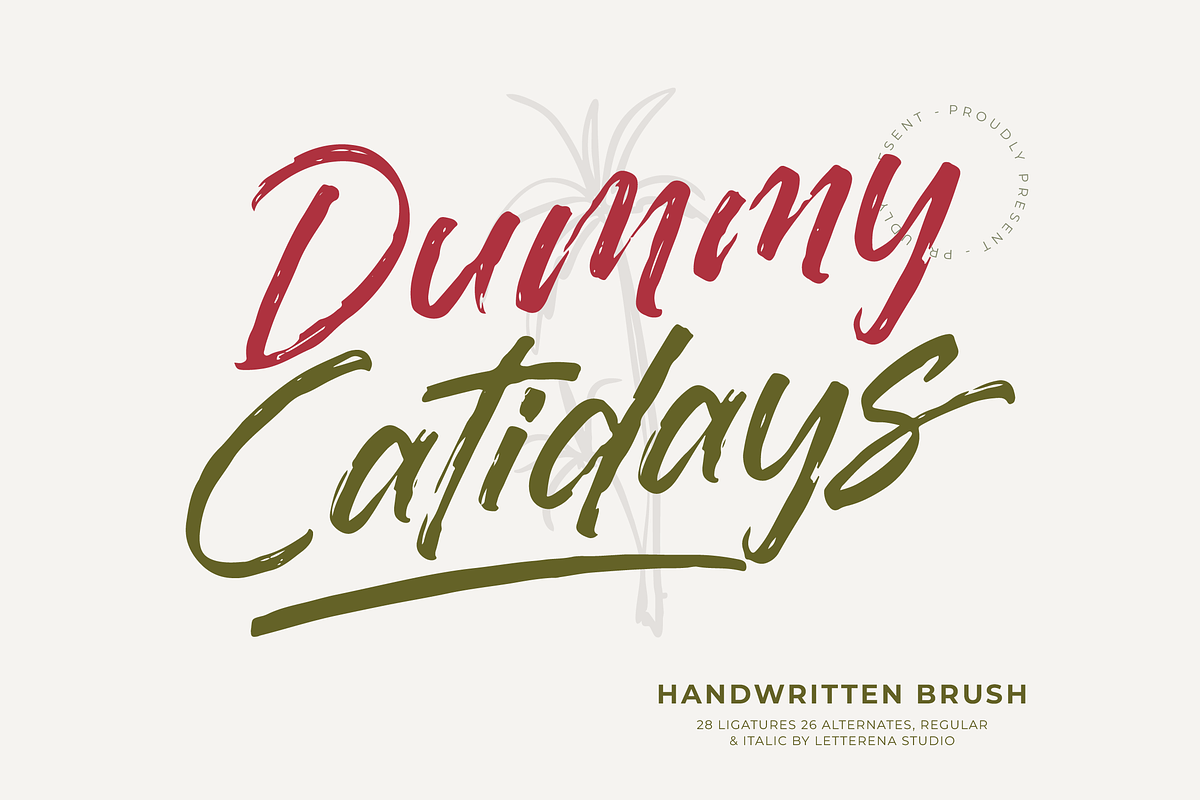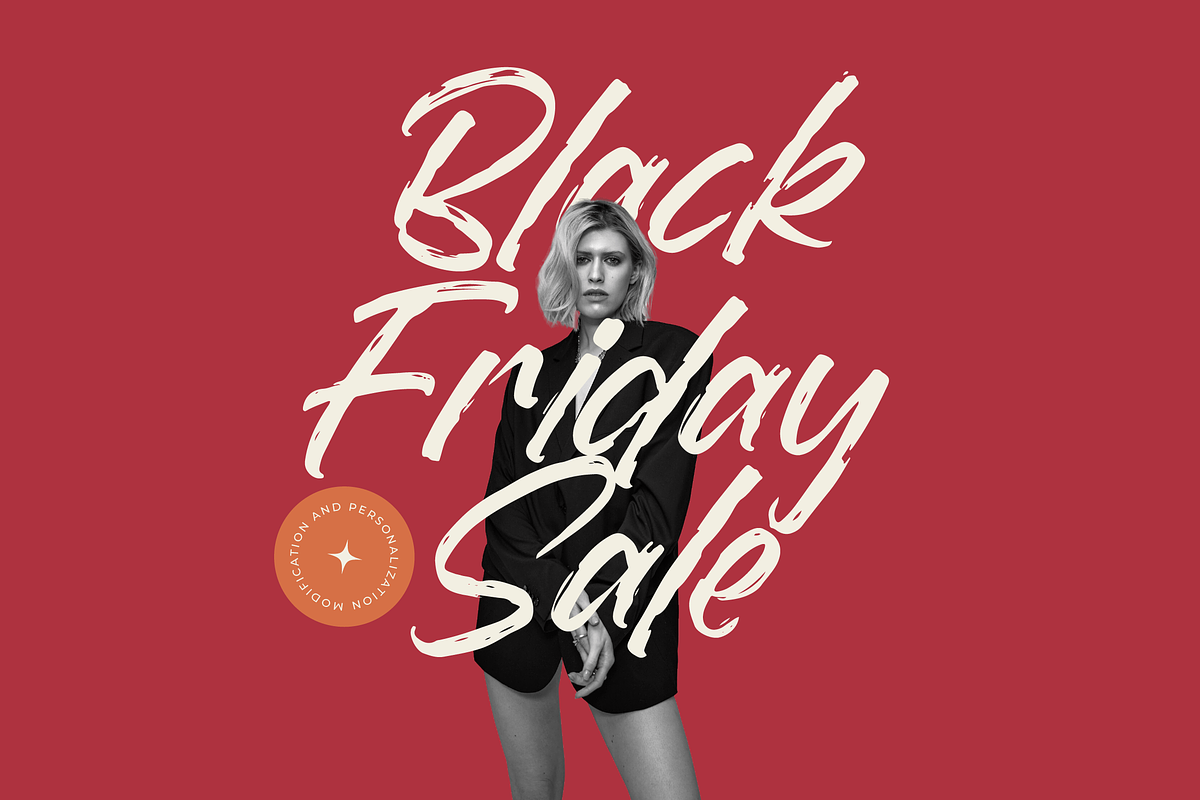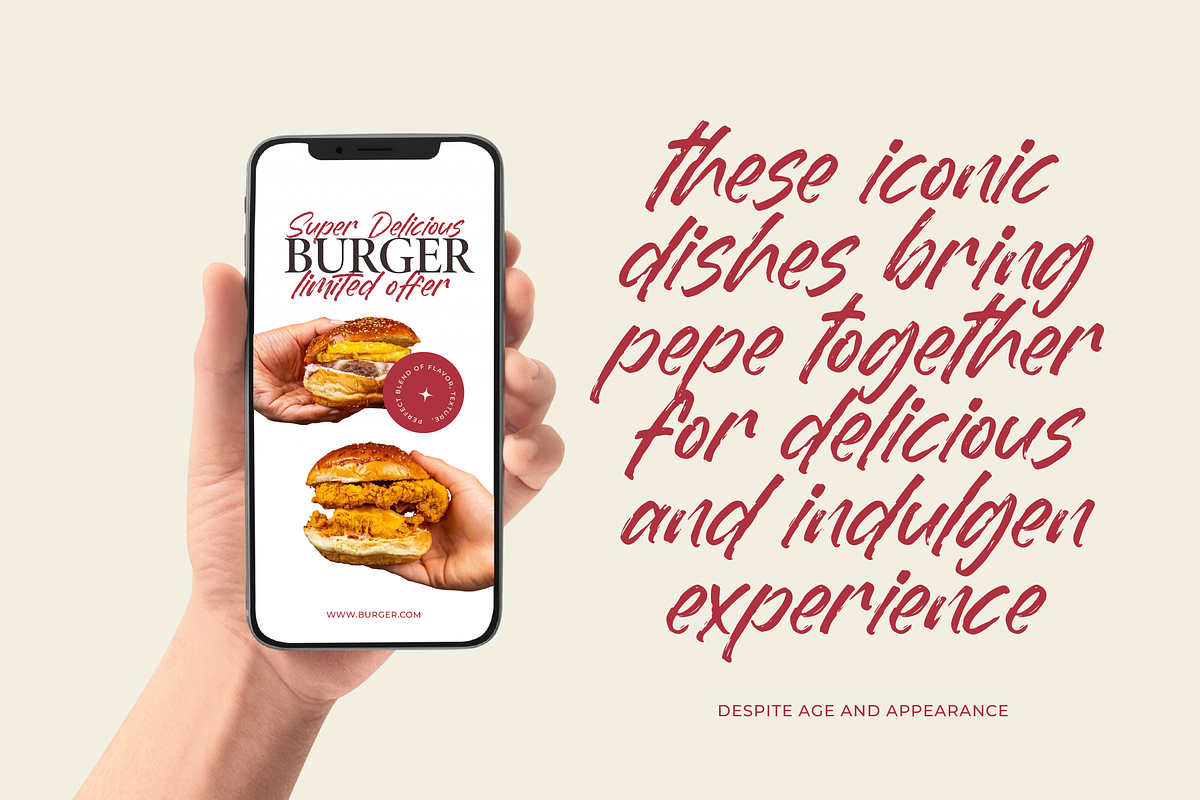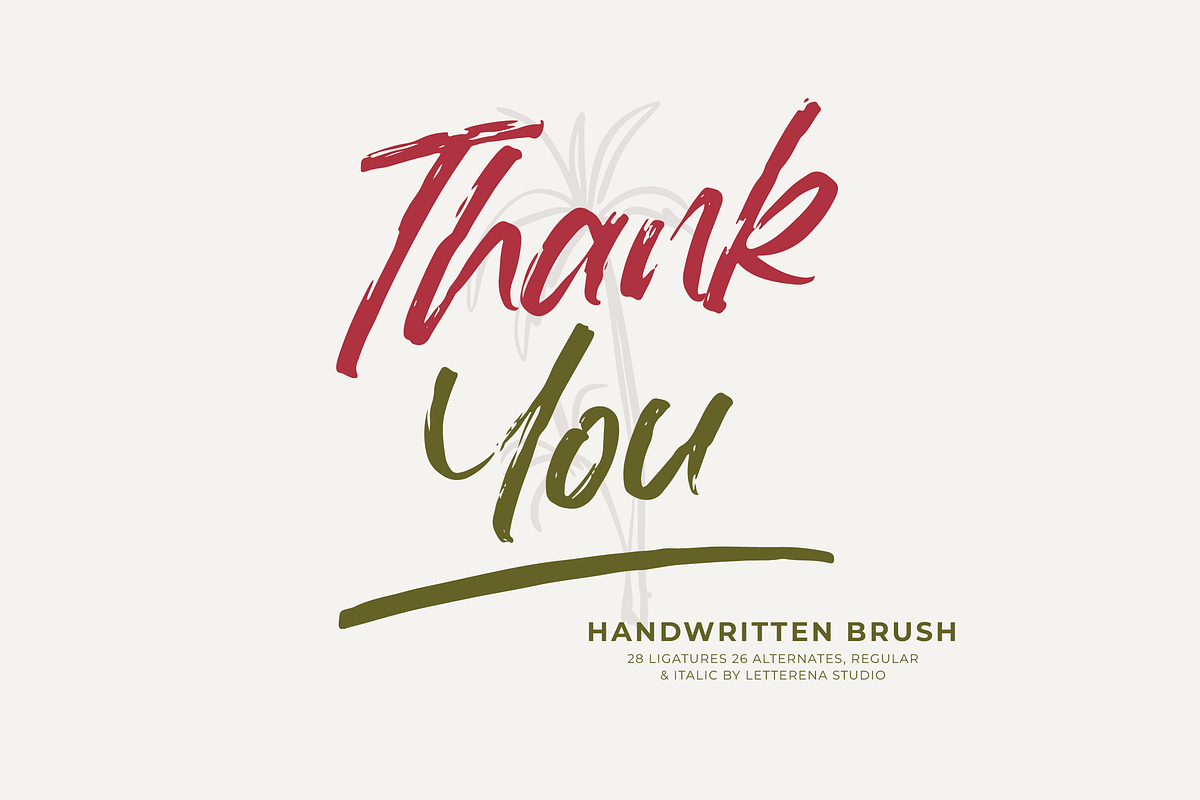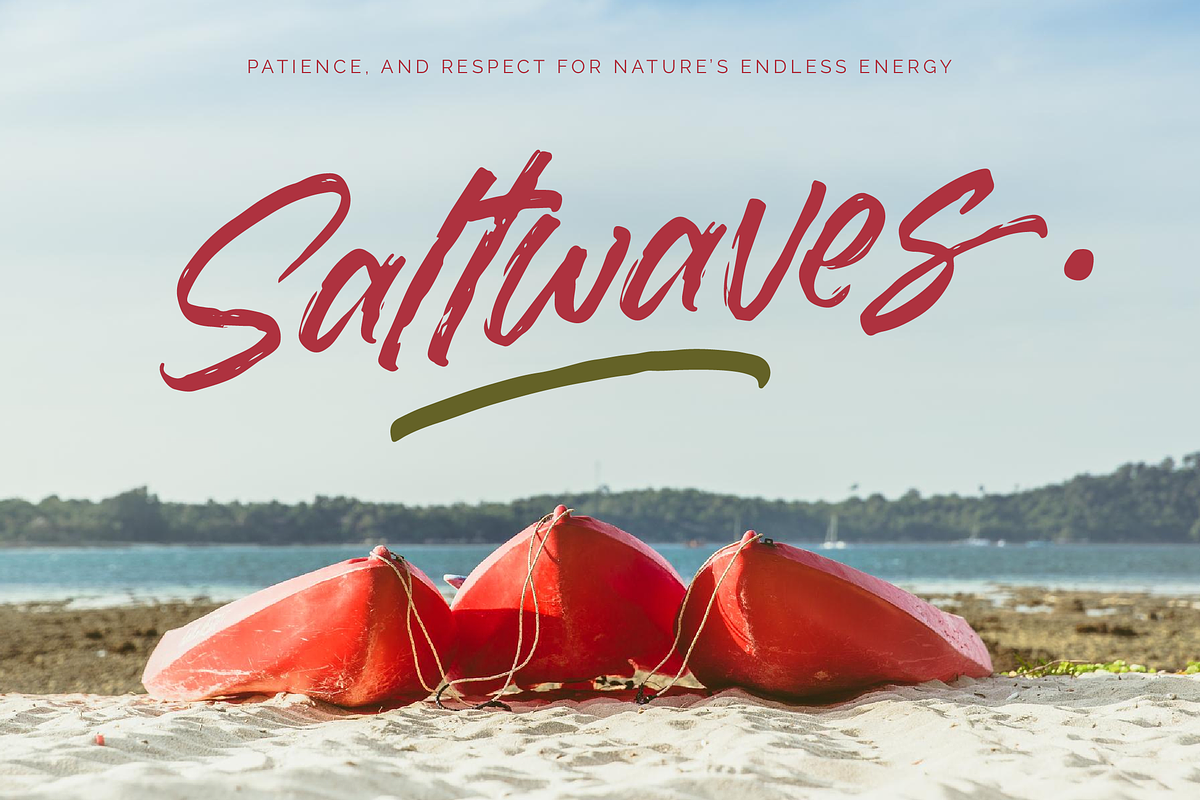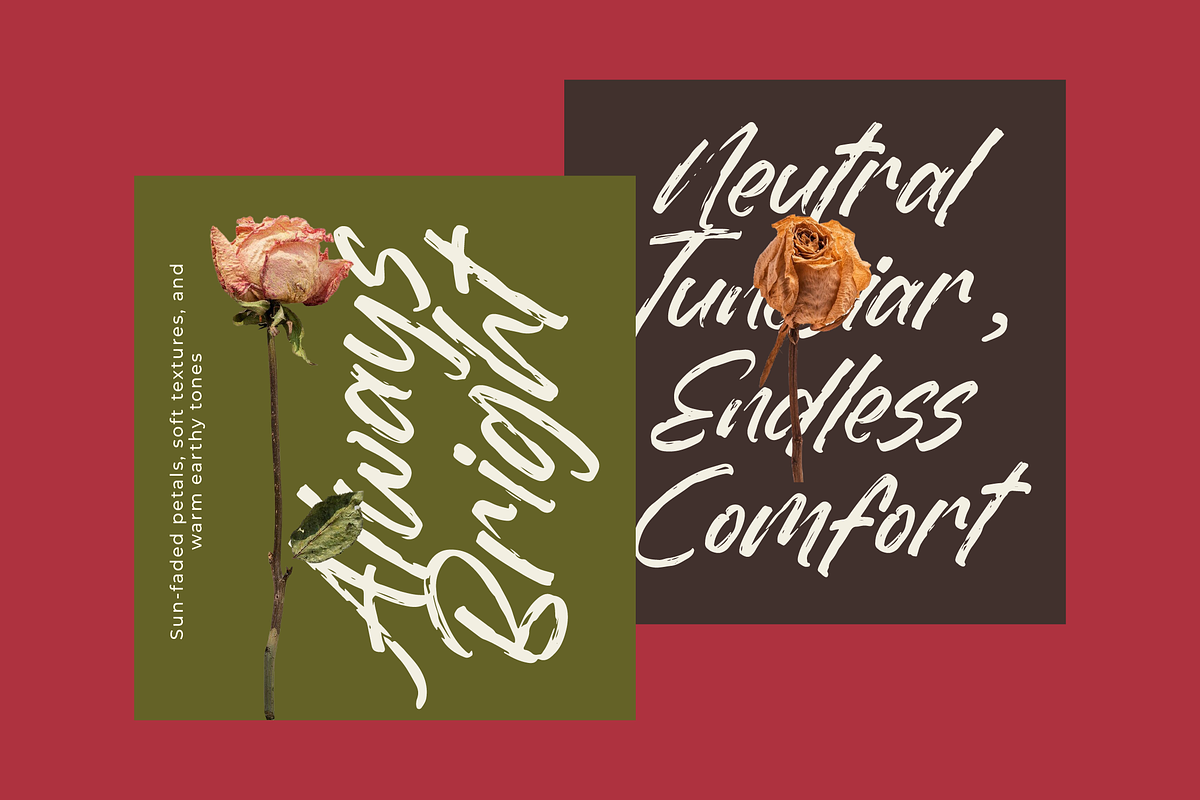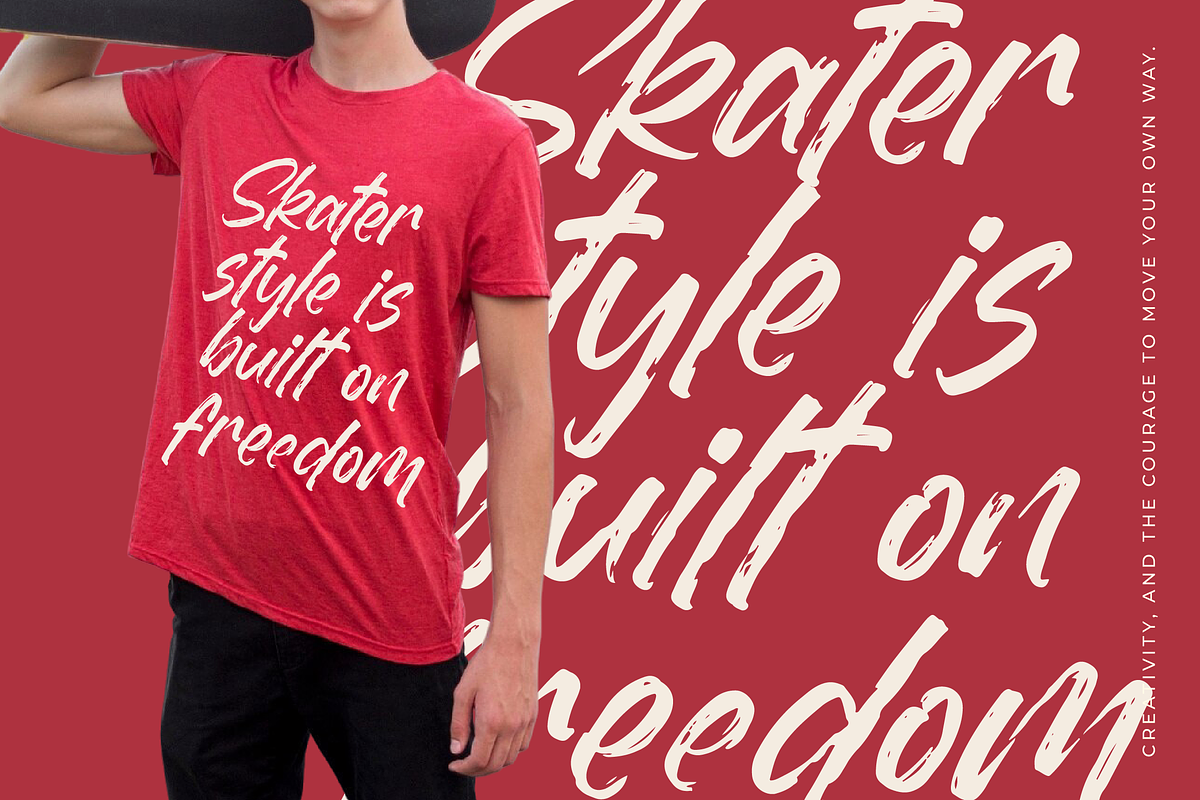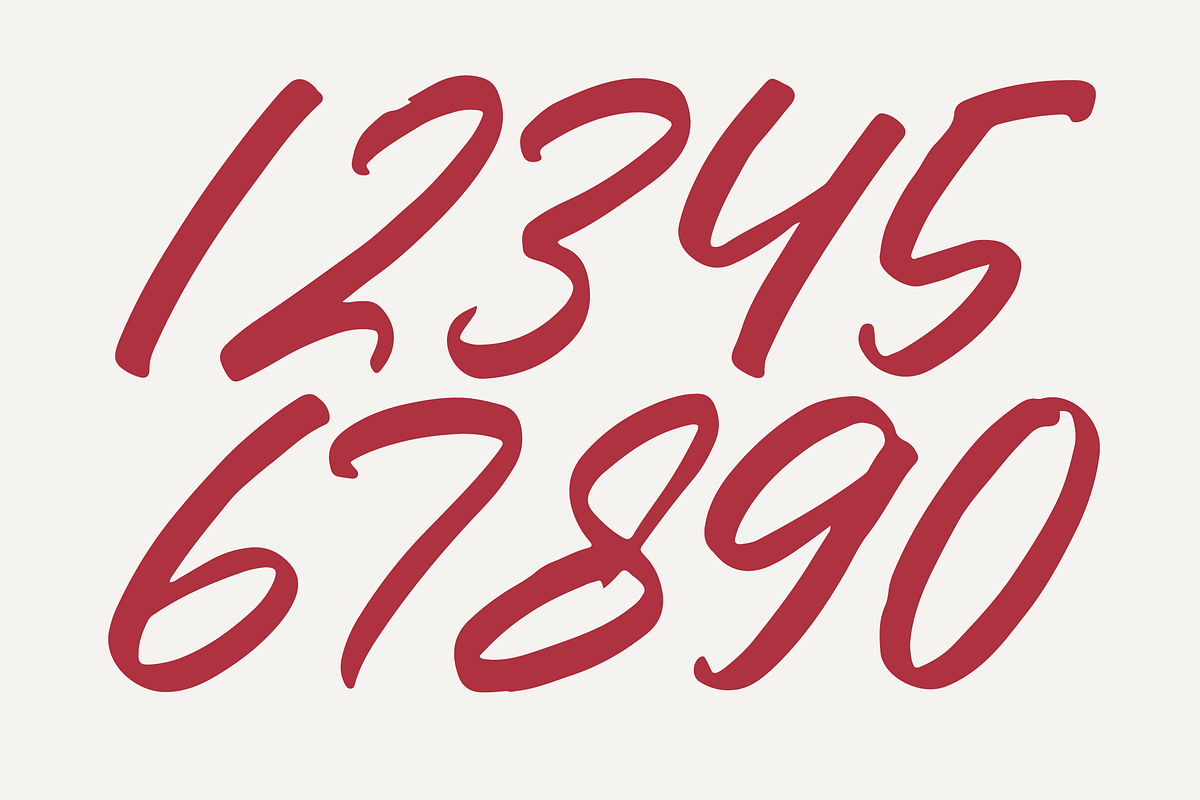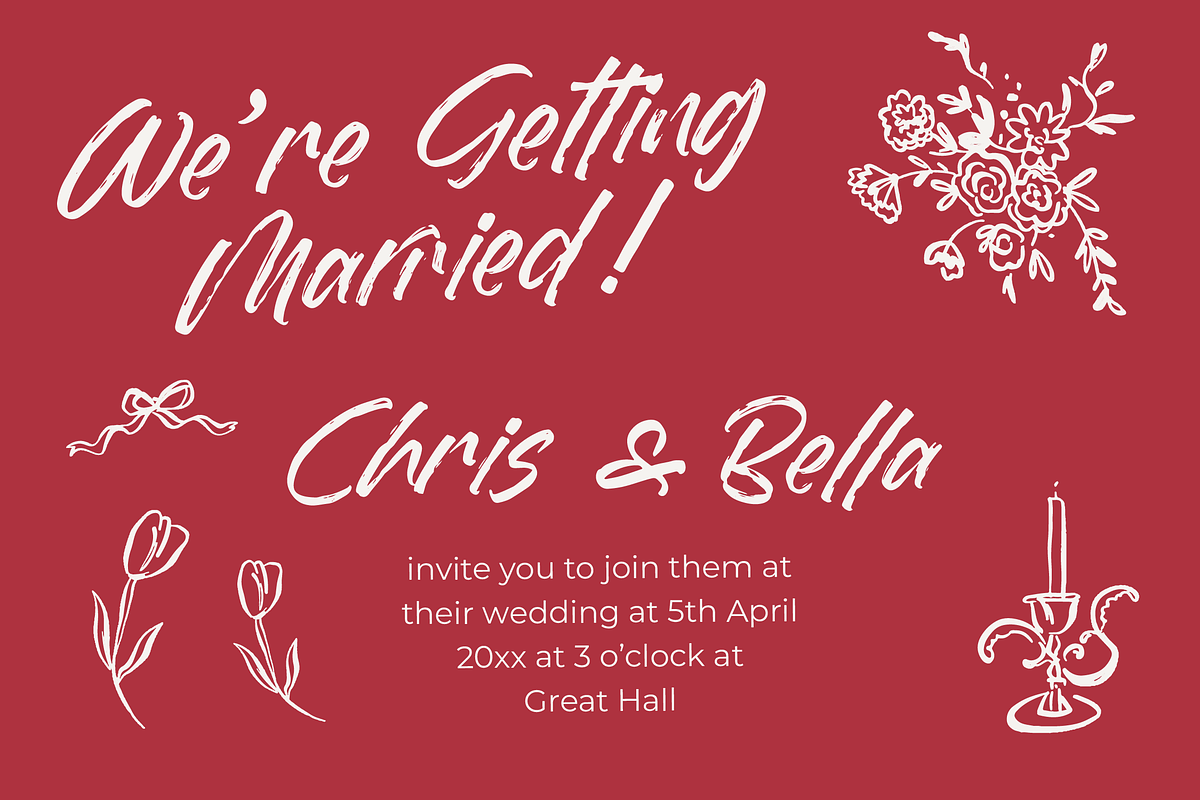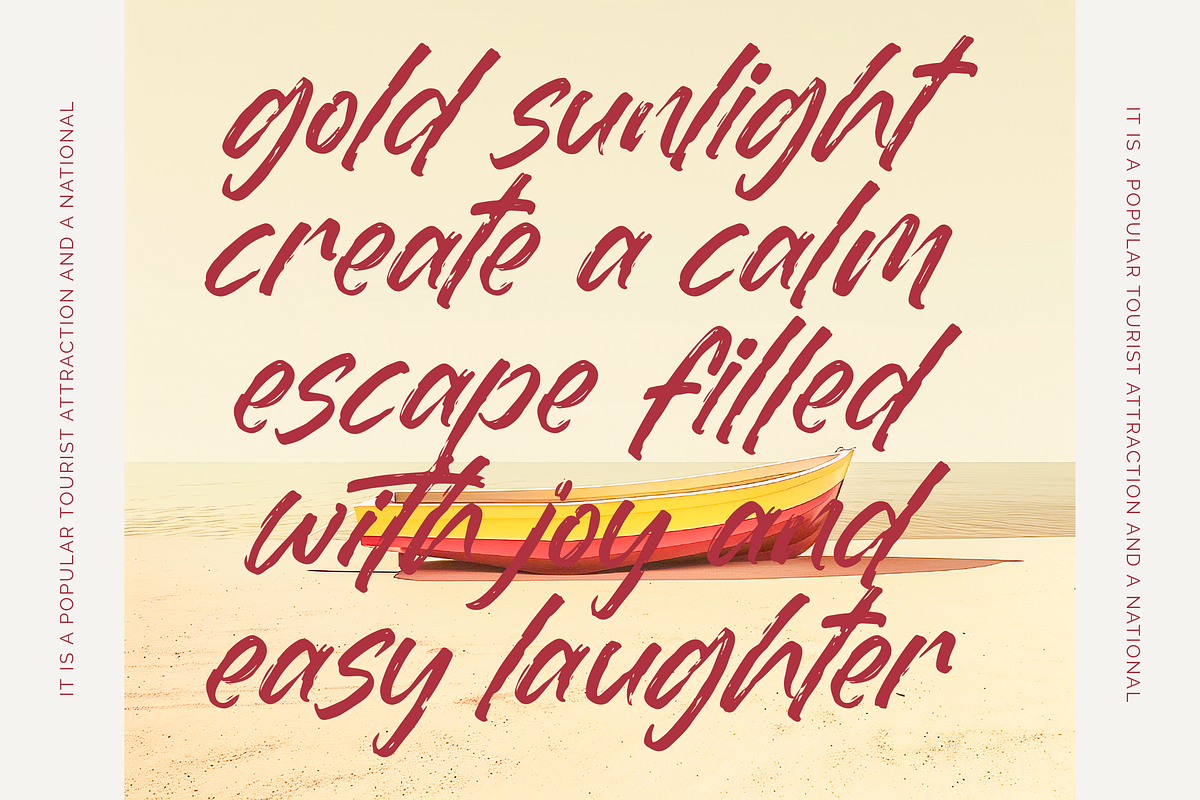
Dummy Catidays Handwritten Brush
Dummy Catidays - Handwritten Brush Font , Dummy Catidays is a playful handwritten brush font designed for expressive, casual, and modern branding. Its textured strokes, energetic movement, and natural handwritten flow make it perfect for creative projects such as posters, packaging, social media graphics, merchandise, and lifestyle branding. With a full set of ligatures, alternates, and both regular & italic styles, this font brings spontaneity, personality, and an authentic handcrafted feel to any design.